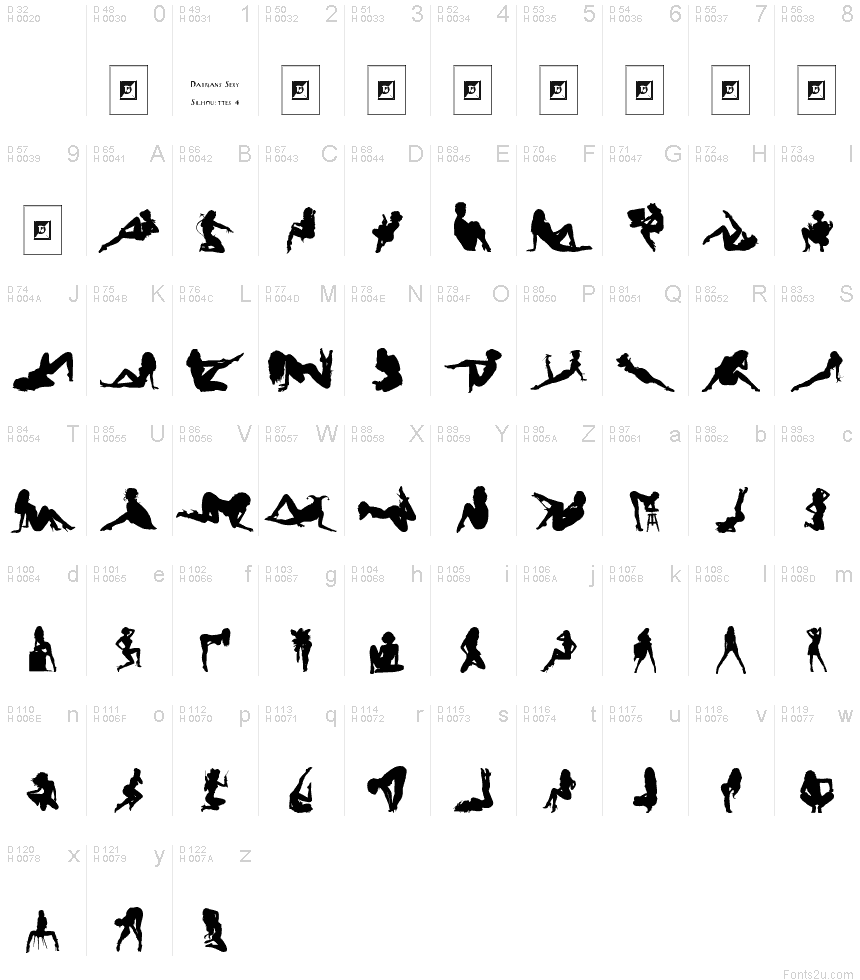
Darrians Sexy Silhouettes 4
Darrians Sexy Silhouettes 4 font by Darrian is a free human-figure dingbat font with an unmistakably after-dark mood. The inky black silhouettes feel bold, playful, and a little theatrical, giving a layout instant attitude without needing extra artwork; they read best large, where the shapes stay crisp and the drama lands fast.
Using Darrians Sexy Silhouettes 4 works beautifully for club flyers, bachelorette invites, boudoir branding, lingerie tags, salon promos, poster art, social graphics, and cheeky scrapbook pages. This free font pairs nicely with a clean condensed sans for titles or small captions, so the silhouettes keep all the spotlight.